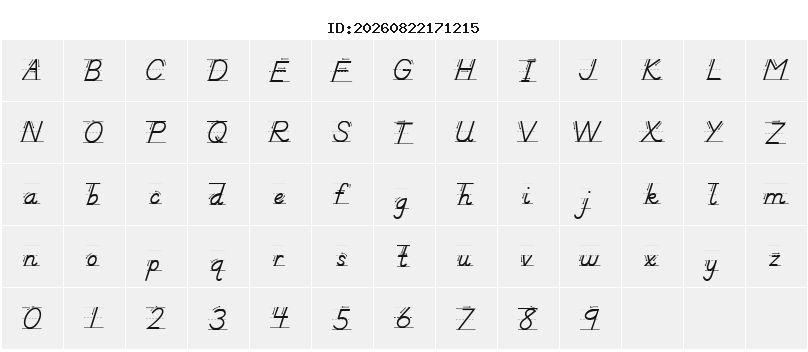
• Font Name: SchoolSlantArrows
• Full Font Name: SchoolSlantArrows
About SchoolSlantArrows.ttf
SchoolSlantArrows.ttf is a modern, elegant sans-serif font designed for ultimate readability and visual harmony. Perfect for branding, headlines, web design, and print materials.